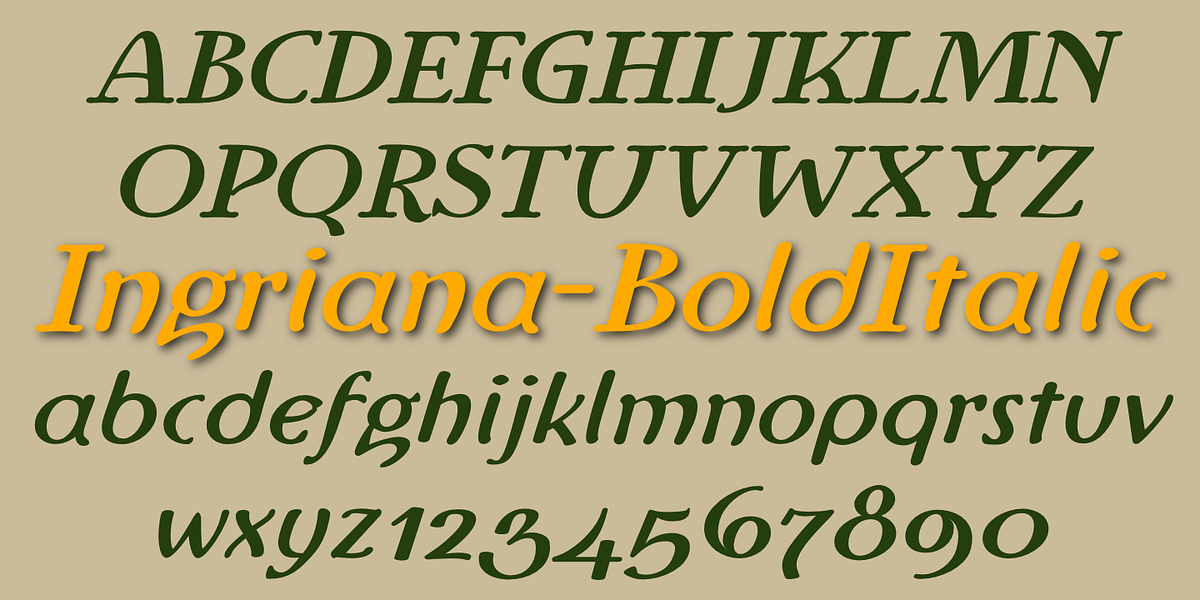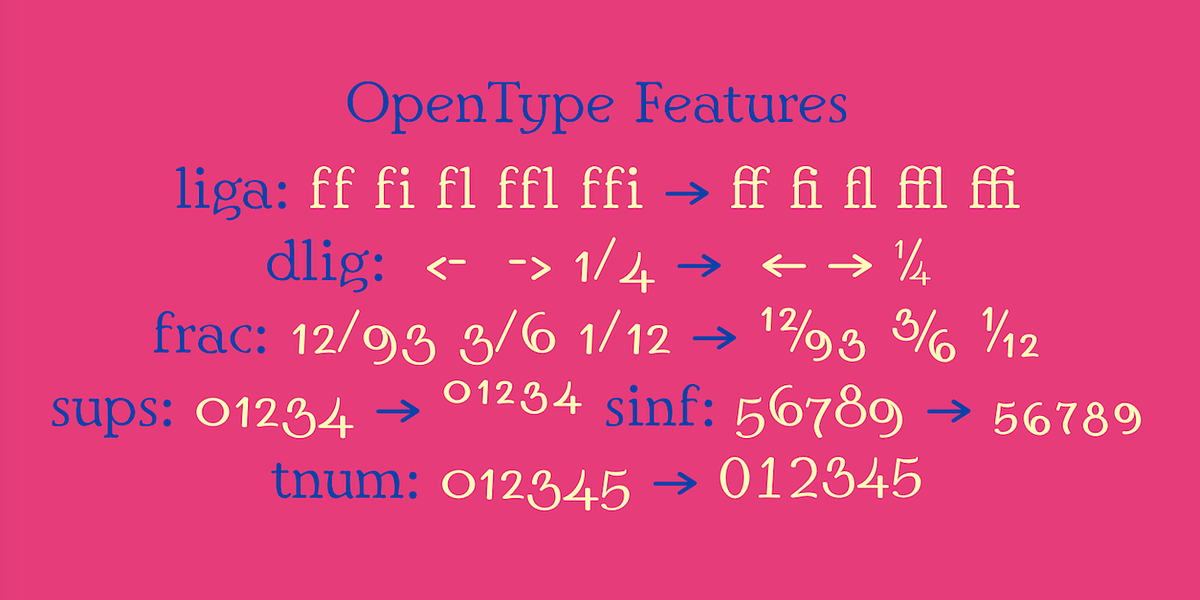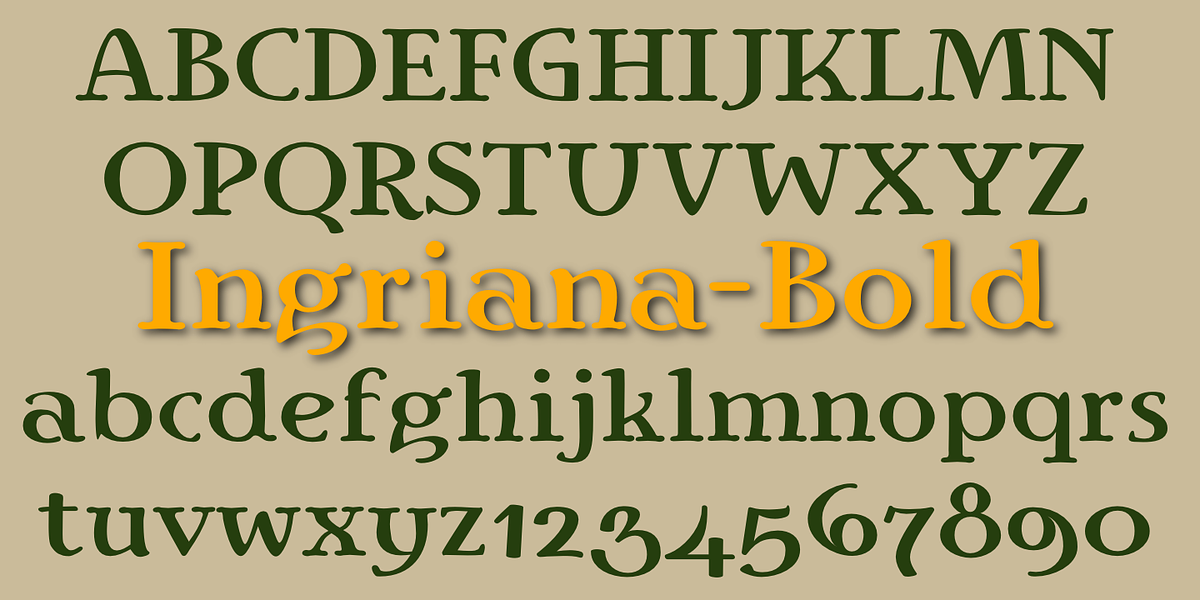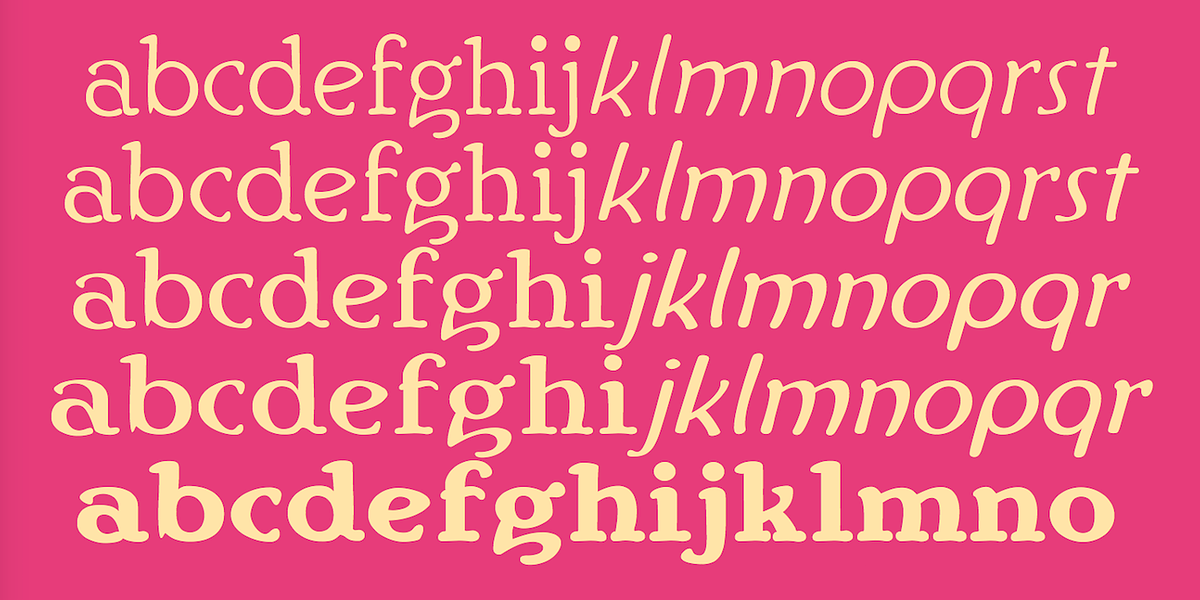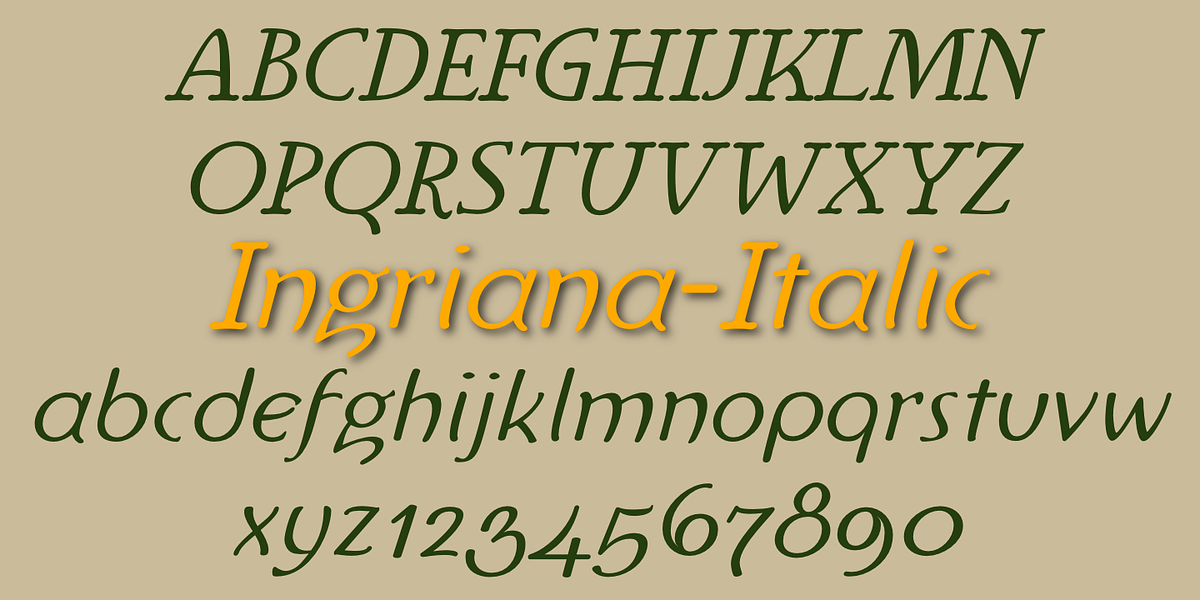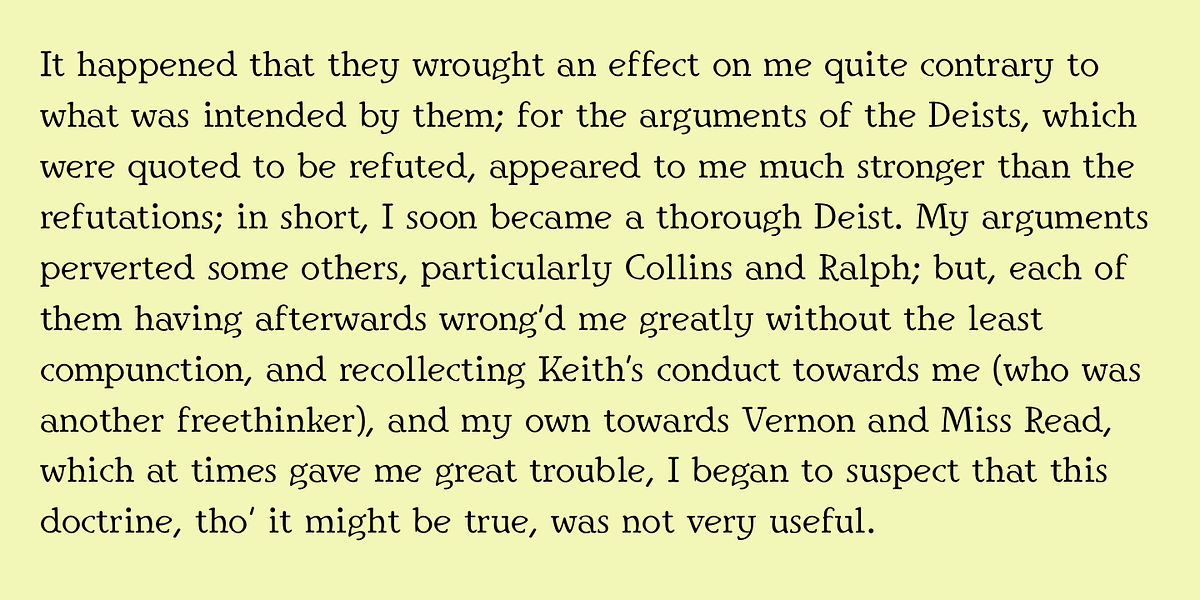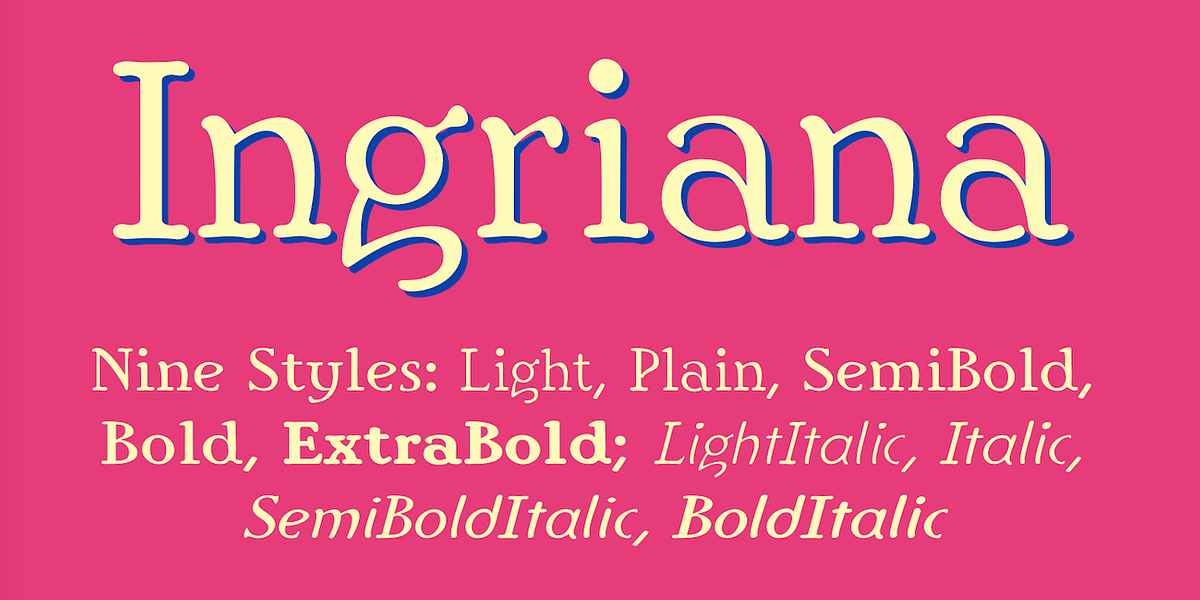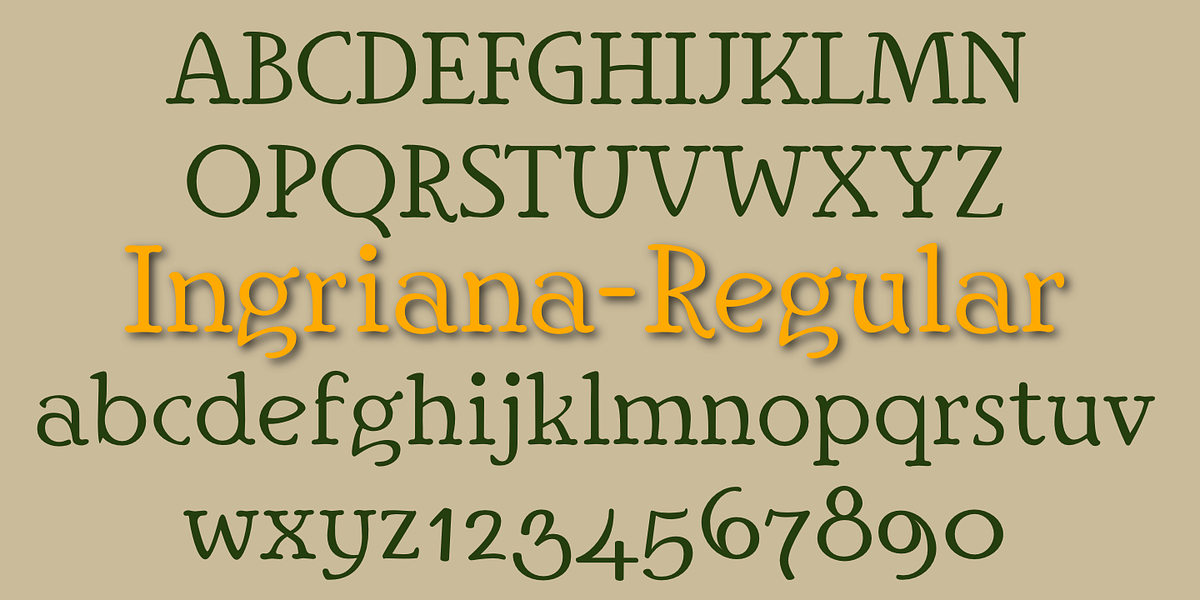
Ingriana
Ingriana is an old style serif typeface with a focus on readability, even at smaller point sizes. It comes in nine styles, suggesting versatility for various applications.